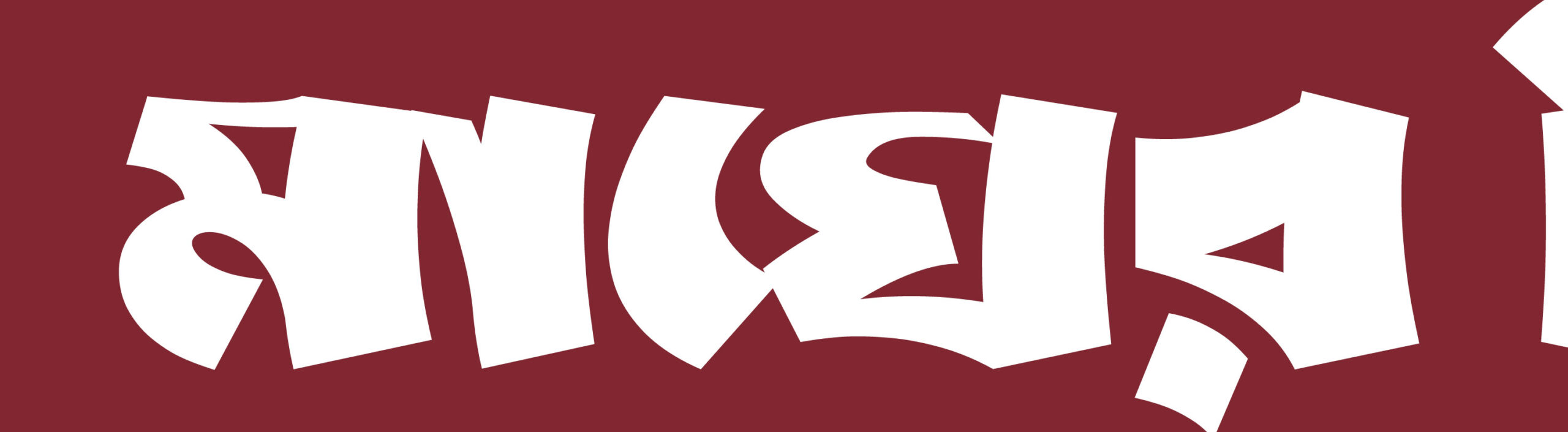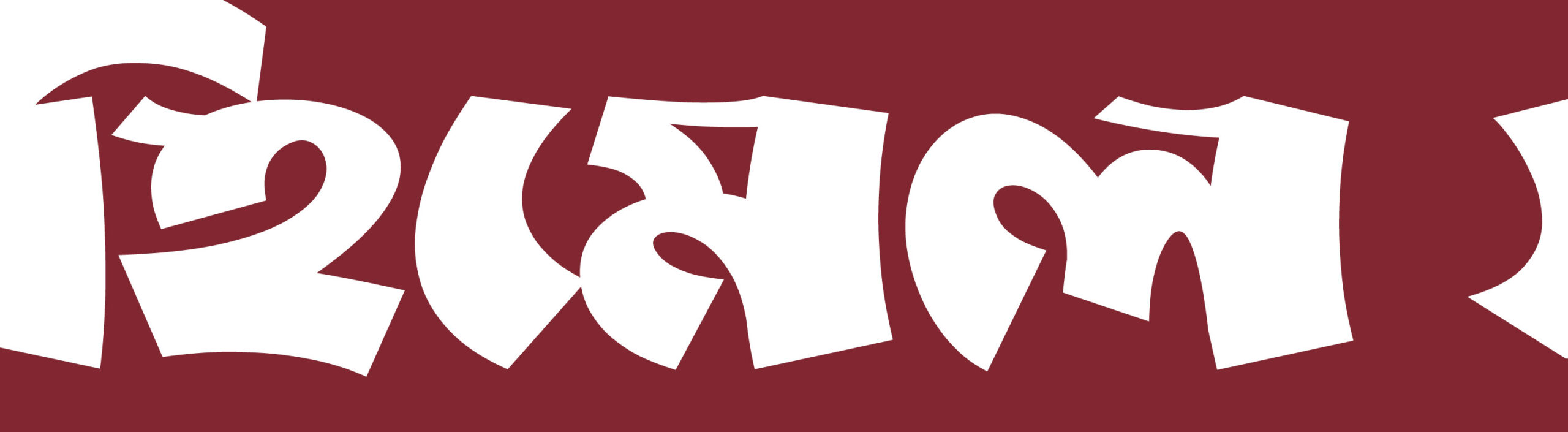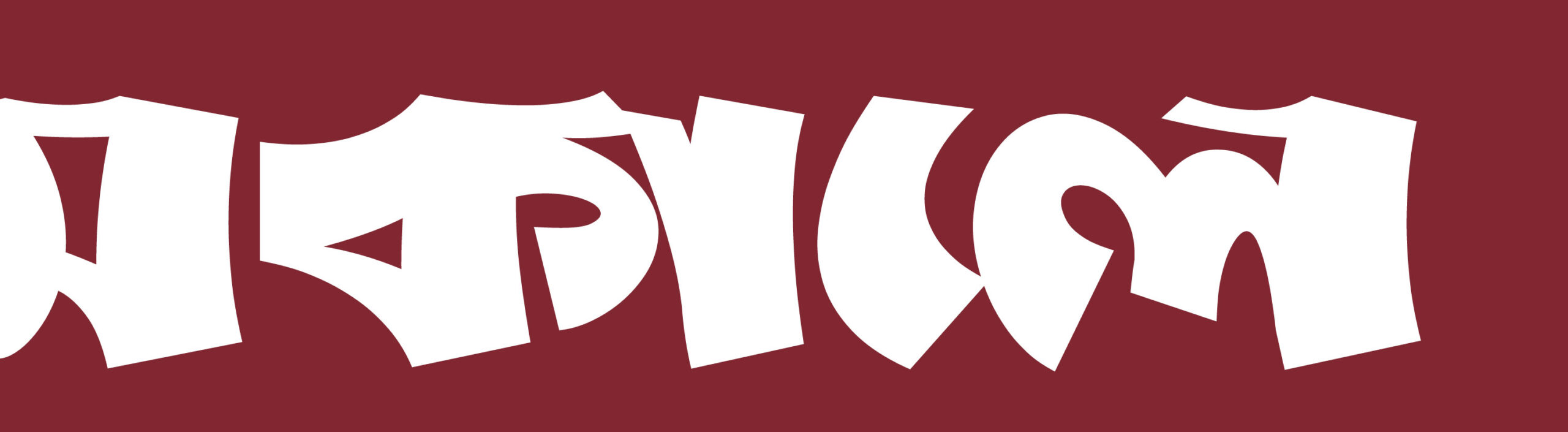
LP Magh
Designer
Kazi Jubair Mahmud
Magh Typeface shouts with boldness, capturing the dense stillness of winter’s peak. Inspired by heavy Bengali woodcuts and hand-painted signage, it features sharp corners, thick strokes, and exaggerated proportions that convey frozen strength and compressed energy. The sculpted letterforms lean into gravity with playful distortion yet serious stance. Inward curves and blocky counters create a striking rhythm, making each glyph feel like solid matter carved from brick or ice. Its substantial weight suits large formats like posters, headlines, protest art, and editorial design. Magh demands attention with jagged cuts and unexpected angles, resisting conformity while blending retro and radical styles. Like the harsh month of Magh, this typeface embodies intensity, pause, and power. It’s not meant to comfort but to stand firm and command space.
Language Support
Bangla
Classifications
Display
Available style
Bold
Type Engineer
Kazi Sayeed Mahmud
Publisher
Lipikola Type Foundry
Magh
Designer
Kazi Jubair Mahmud
Magh Typeface shouts with boldness, capturing the dense stillness of winter’s peak. Inspired by heavy Bengali woodcuts and hand-painted signage, it features sharp corners, thick strokes, and exaggerated proportions that convey frozen strength and compressed energy. The sculpted letterforms lean into gravity with playful distortion yet serious stance. Inward curves and blocky counters create a striking rhythm, making each glyph feel like solid matter carved from brick or ice. Its substantial weight suits large formats like posters, headlines, protest art, and editorial design. Magh demands attention with jagged cuts and unexpected angles, resisting conformity while blending retro and radical styles. Like the harsh month of Magh, this typeface embodies intensity, pause, and power. It’s not meant to comfort but to stand firm and command space.
Family Name
Magh
Available style
Bold
Classification
Display
Type Engineer
Kazi Sayeed Mahmud
Publisher
Lipikola Type Foundry